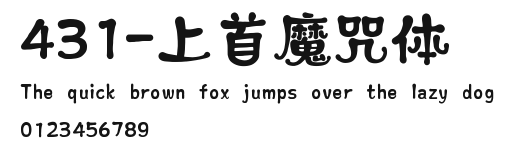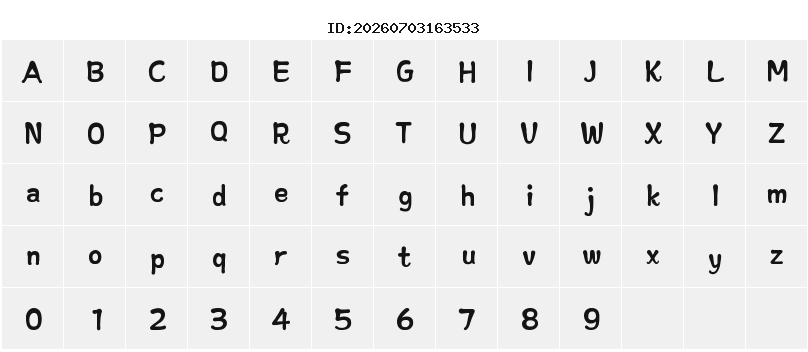
• Font Name: 431-上首魔咒体
• Font ID: 431-上首魔咒体
• Full Font Name: 431-上首魔咒体
• Version: Version 4.00 March 13, 2026
• PostScript Name: 431-SSMoZhouTi
• Character Count: 7603
• Manufacturer: 上首造字
About 431-上首魔咒体.ttf
431-上首魔咒体.ttf is a modern, elegant sans-serif font designed for ultimate readability and visual harmony. Perfect for branding, headlines, web design, and print materials.